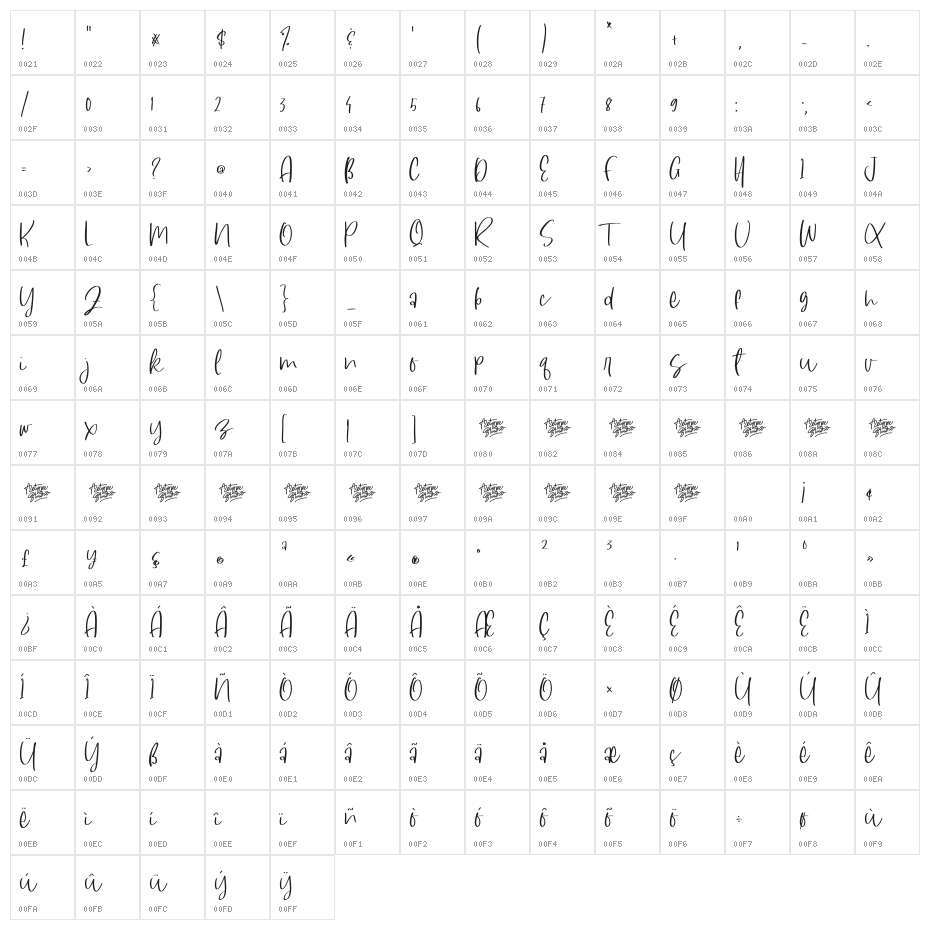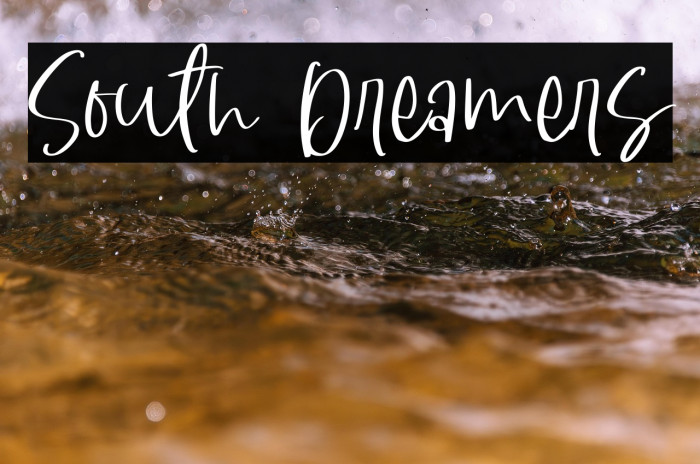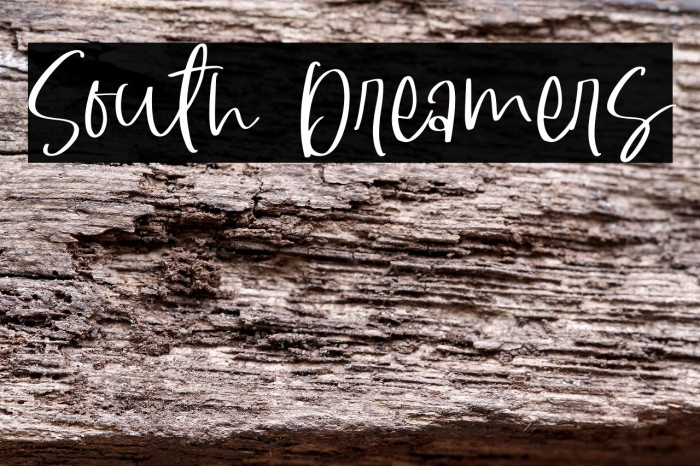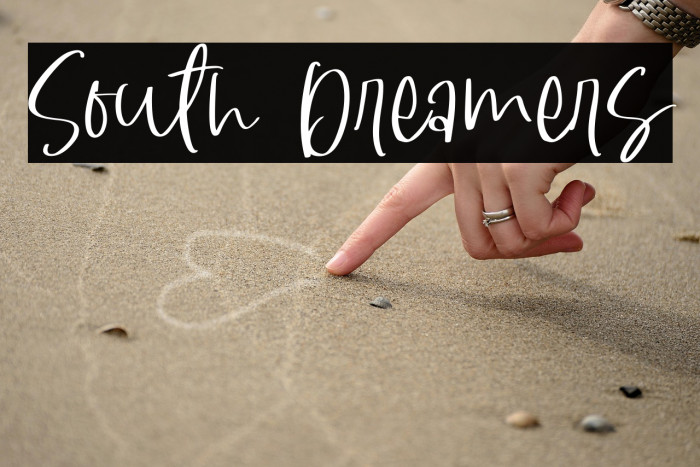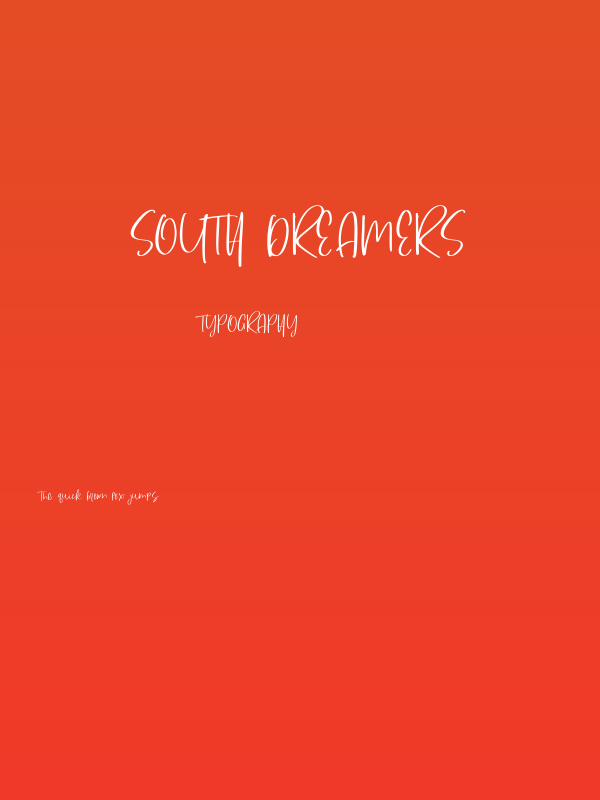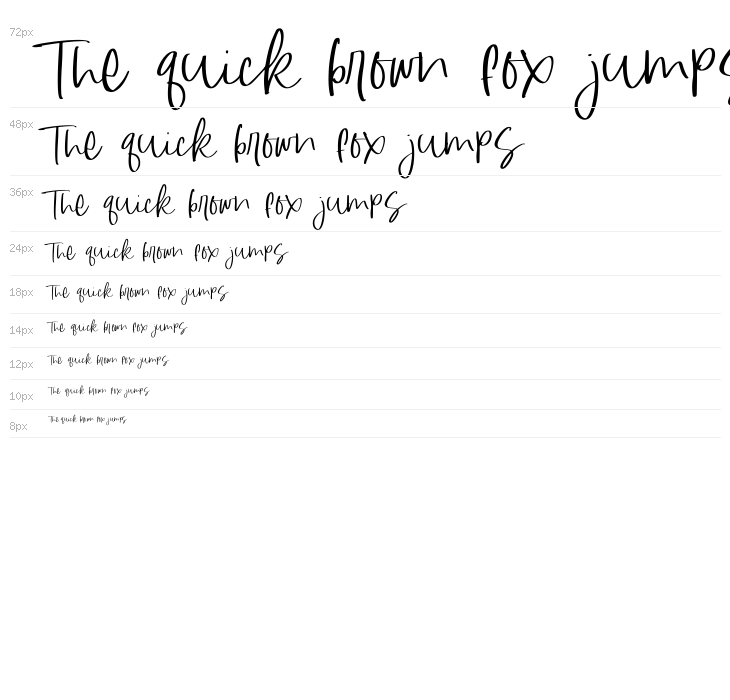
South Dreamers Font
South Dreamers Description
This font features a lively and expressive handwritten style, characterized by its fluid and dynamic strokes. The uppercase letters exhibit a playful yet elegant flair, with varying line thicknesses that add a sense of movement and energy. The lowercase letters maintain this fluidity, offering a harmonious blend of curves and angles. Numbers and special characters are crafted with the same attention to detail, ensuring consistency across all glyphs. The overall design is both modern and approachable, making it suitable for a wide range of creative applications. Its unique style can add a personal touch to any project, making it ideal for branding, invitations, and artistic endeavors.
| Proposed Projects | Ideal for branding, invitations, artistic projects, and creative designs. |